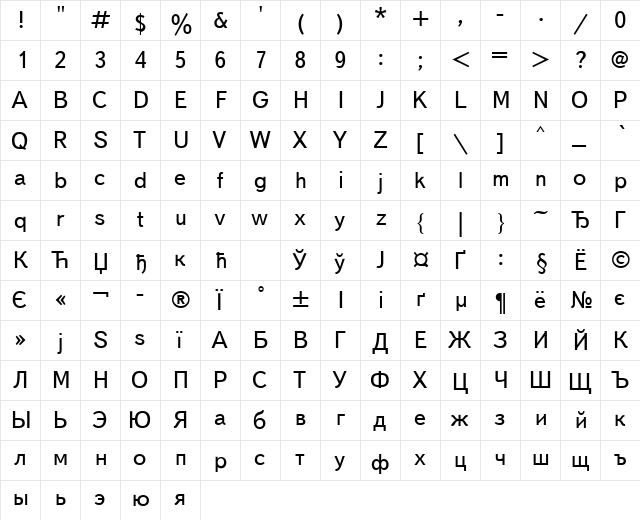
TextBookCTT Regular Font Preview
TextBookCTT Regular
Design Context for TextBookCTT Typeface
TextBookCTT is a composed and adaptable typeface that performs quietly and consistently across a wide range of design contexts.